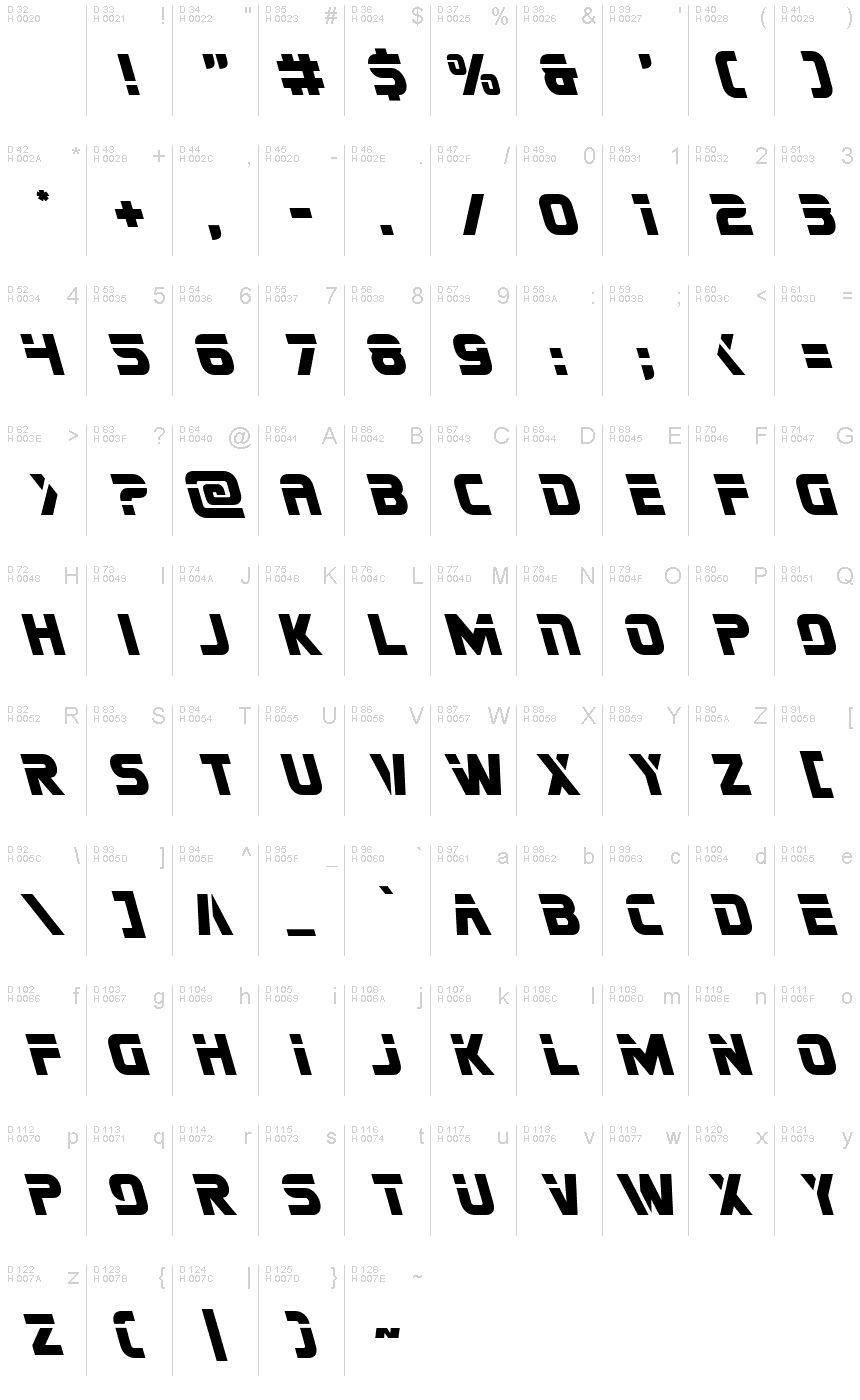
Mission: Danger Leftalic
Mission: Danger Leftalic is the bold and futuristic display font you need for your next project. Designed by Iconian Fonts, this semi-condensed typeface is perfect for creating attention-grabbing headlines, logos, and posters. Its unique italic style adds an edgy and daring touch to any design. Use Mission: Danger Leftalic to create a sense of adventure in your sci-fi movie posters or to add a futuristic vibe to your tech startup's branding. This versatile font is suitable for various projects that require a bold and modern look - from video game titles to fashion editorials. Embrace the danger with Mission: Danger Leftalic.